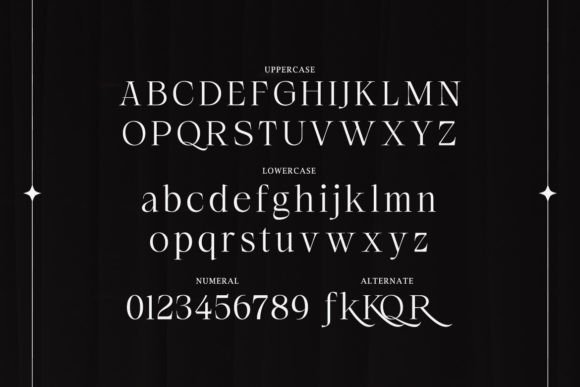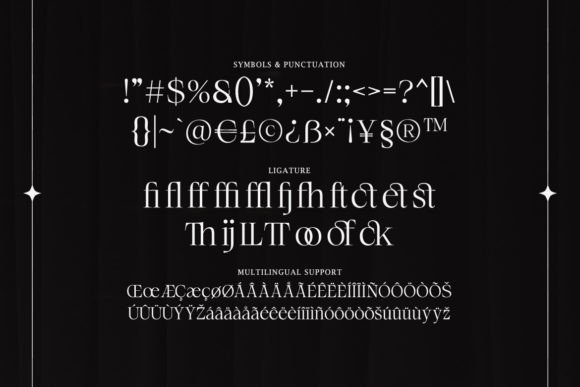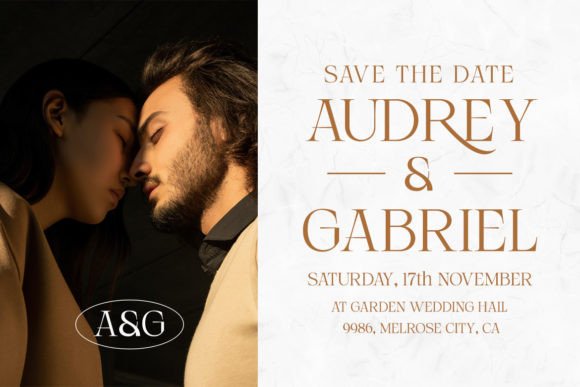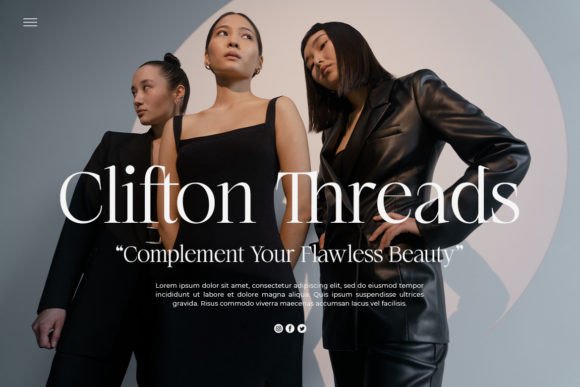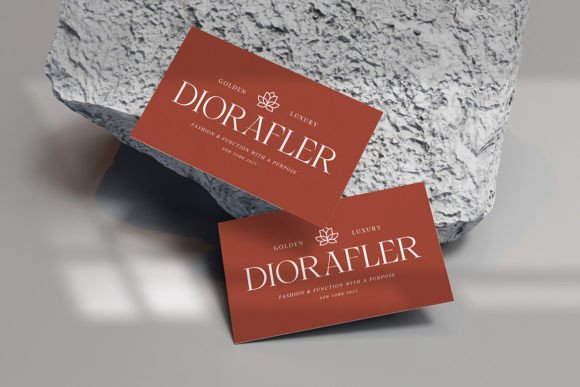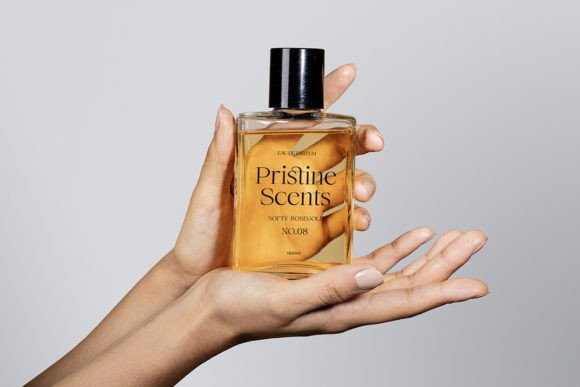
Glamore Font: Elevate Your Designs with Elegance and Versatility
In the world of typography, a font can make or break a design. For designers and crafters seeking to add a touch of sophistication and elegance to their projects, the Glamore Font is an excellent choice. This clean serif typeface seamlessly blends traditional influences with a contemporary aesthetic, making it an ideal match for a wide range of projects.
The Essence of Glamore Font
Glamore is more than just a font; it’s a design statement. Elegantly crafted, it embodies the perfect balance between classic and modern elements. Its clean lines and serif details evoke a sense of tradition, while its contemporary twist ensures it remains fresh and relevant. This unique blend makes Glamore an exquisite choice for designers looking to achieve a subtle yet sophisticated look.
One of the standout features of the Glamore Font is its maximum versatility. Whether you’re working on a branding project, a website design, a print material, or a digital application, Glamore can easily be matched to a large set of projects. Its adaptability stems from its clean and uncluttered design, which allows it to complement a variety of themes and styles without overpowering them.
Why Choose Glamore Font?
There are several reasons why designers and crafters should consider Glamore for their projects:
- Elegant and Sophisticated: Glamore adds a touch of elegance and sophistication to any design, making it perfect for projects that require a high level of professionalism.
- Clean and Readable: The clean lines and clear letterforms of Glamore ensure excellent readability, even at smaller sizes, making it suitable for both digital and print applications.
- Versatile: Glamore’s versatility means it can be used across a wide range of projects, from luxury branding to educational materials.
- Easy to Pair: The font’s neutral yet elegant design makes it easy to pair with other typefaces, allowing for creative and harmonious typography combinations.
Applications of Glamore Font
The applications of Glamore Font are vast and varied. Here are a few examples of projects where Glamore can make a significant impact:
- Branding and Logo Design: Use Glamore to create a lasting impression with a sophisticated and elegant brand identity.
- Website Design: Enhance your website’s typography with Glamore, ensuring a clean, readable, and engaging user experience.
- Print Materials: From business cards to brochures, Glamore can elevate your print materials with its classic yet contemporary aesthetic.
- Digital Applications: Glamore is perfect for mobile apps, e-books, and digital magazines, where readability and elegance are paramount.
In conclusion, the Glamore Font is a powerful tool for designers and crafters looking to infuse their projects with elegance, sophistication, and versatility. Its clean serif design, blending traditional influences with a modern aesthetic, makes it an excellent choice for a wide range of applications. By choosing Glamore, you can ensure your designs stand out with a subtle yet exquisite look that captures the essence of contemporary elegance.
Whether you’re a seasoned designer or a crafting enthusiast, Glamore Font is sure to become an indispensable part of your creative arsenal. So, why wait? Explore the possibilities with Glamore and elevate your designs to new heights of sophistication and style.